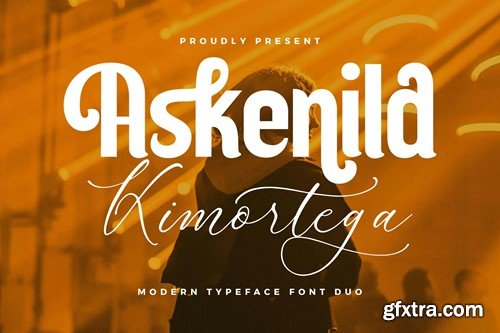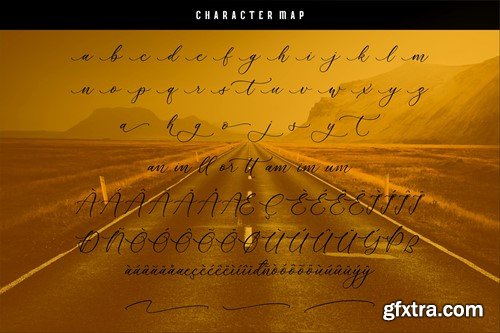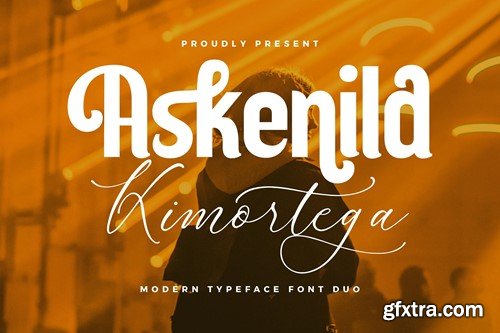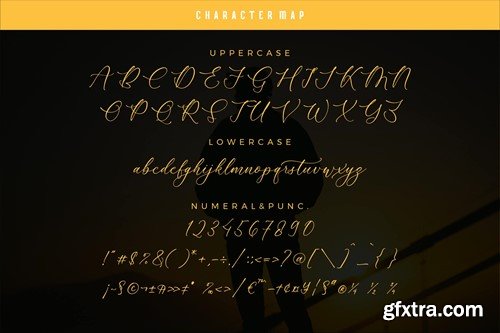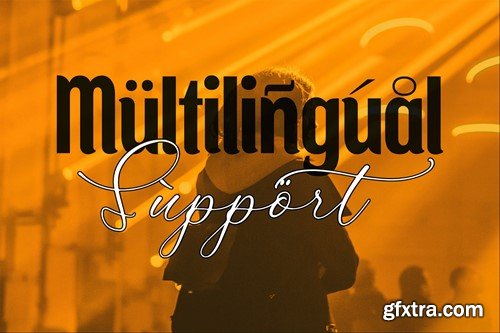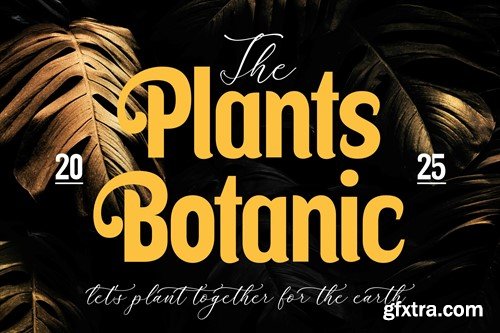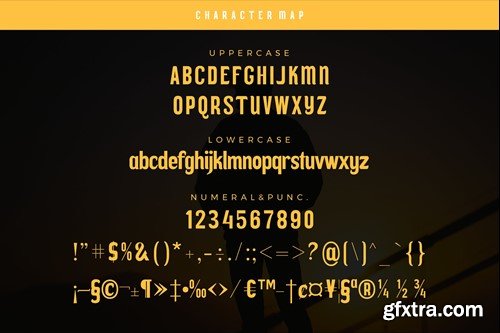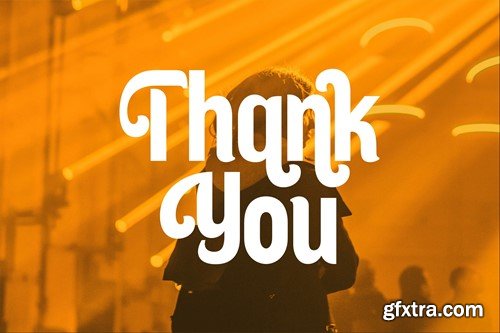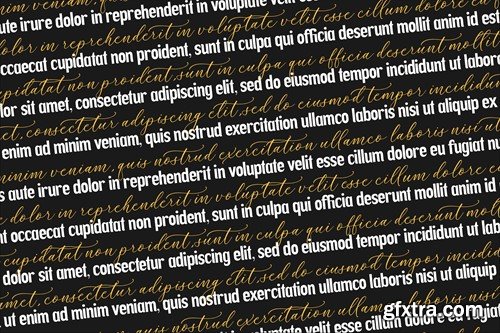
Askenild Kimortega Modern Font Duo
Hi ladies & gentlemen, this is one of our fonts suitable to complement your digital and printed creative products. This font is perfect for posters, social media posts, branding, personal projects, etc. Include Files Thank you